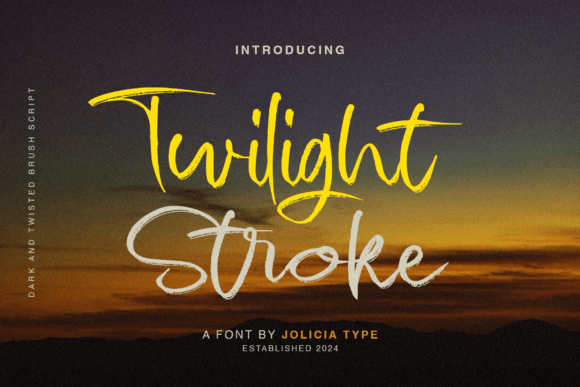
Twilight Stroke Font: Unleash Dynamic Creativity in Your Designs
In the realm of typography, fonts play a pivotal role in shaping the visual identity of a brand, product, or creative project. Among the myriad of font styles available, script brush fonts have gained significant popularity for their unique ability to add a personal, artistic touch to designs. One such font that has been making waves in the design community is the Twilight Stroke Font. This article aims to provide an in-depth look at the Twilight Stroke Font, exploring its characteristics, uses, and the creative possibilities it offers.
What is Twilight Stroke Font?
Twilight Stroke is a script brush font that showcases dynamic and energetic brush strokes. Each letter is crafted with flowing and bold details, reflecting a balance of artistic freedom and visual strength. This font is designed to make a statement, adding a touch of boldness and expressiveness to any design project.
Key Characteristics of Twilight Stroke Font
- Dynamic Brush Strokes: The font features energetic and dynamic brush strokes, giving it a lively and spontaneous feel.
- Flowing and Bold Details: Each letter is designed with flowing and bold details, making it perfect for creative projects that require a strong visual impact.
- Artistic Freedom and Visual Strength: The font strikes a balance between artistic freedom and visual strength, making it versatile for various design applications.
- Script Brush Style: As a script brush font, Twilight Stroke offers a personal and artistic touch, ideal for designs that require a unique and expressive feel.
Uses and Applications of Twilight Stroke Font
Twilight Stroke Font is perfect for creative projects like branding, packaging, or social media design. Its bold and expressive nature makes it an excellent choice for designers looking to add a daring and unique touch to their work. Some potential applications of this font include:
- Branding: Use Twilight Stroke Font to create a bold and memorable brand identity that stands out from the competition.
- Packaging: Add a creative and artistic touch to product packaging with this dynamic font.
- Social Media Design: Elevate social media graphics and posts with the expressive and energetic feel of Twilight Stroke Font.
- Advertising: Use the font to create eye-catching advertisements that grab attention and leave a lasting impression.
Benefits of Using Twilight Stroke Font
The Twilight Stroke Font offers several benefits to designers and brands, including:
- Unique and Expressive: The font’s dynamic brush strokes and bold details make it a unique and expressive choice for designs.
- Versatile: Twilight Stroke Font can be used for various design applications, from branding and packaging to social media and advertising.
- Attention-Grabbing: The font’s bold nature makes it perfect for designs that require attention-grabbing typography.
- Customizable: As a digital font, Twilight Stroke can be easily customized to fit the specific needs of a design project.
Tips for Using Twilight Stroke Font Effectively
To get the most out of Twilight Stroke Font, consider the following tips:
- Pair with Neutral Backgrounds: The font’s bold nature works best when paired with neutral backgrounds that allow the typography to take center stage.
- Use for Headlines and Titles: Twilight Stroke Font is perfect for headlines and titles, where its bold and expressive nature can make a significant impact.
- Experiment with Colors: Don’t be afraid to experiment with different colors to find the perfect match for your design.
- Keep it Simple: While the font is bold and expressive, it’s essential to keep the overall design simple and uncluttered to avoid overwhelming the audience.
In conclusion, Twilight Stroke Font is a powerful and expressive script brush font that offers a unique and dynamic touch to design projects. Its bold and flowing details make it perfect for creative applications like branding, packaging, and social media design. By understanding its characteristics, uses, and benefits, designers can effectively incorporate Twilight Stroke Font into their work, unleashing a new level of creativity and visual impact.
Final Thoughts
The Twilight Stroke Font is an excellent addition to any designer’s toolkit, offering a bold and expressive way to elevate designs. Whether you’re a seasoned designer or just starting out, this font is sure to inspire creativity and help you produce stunning work.